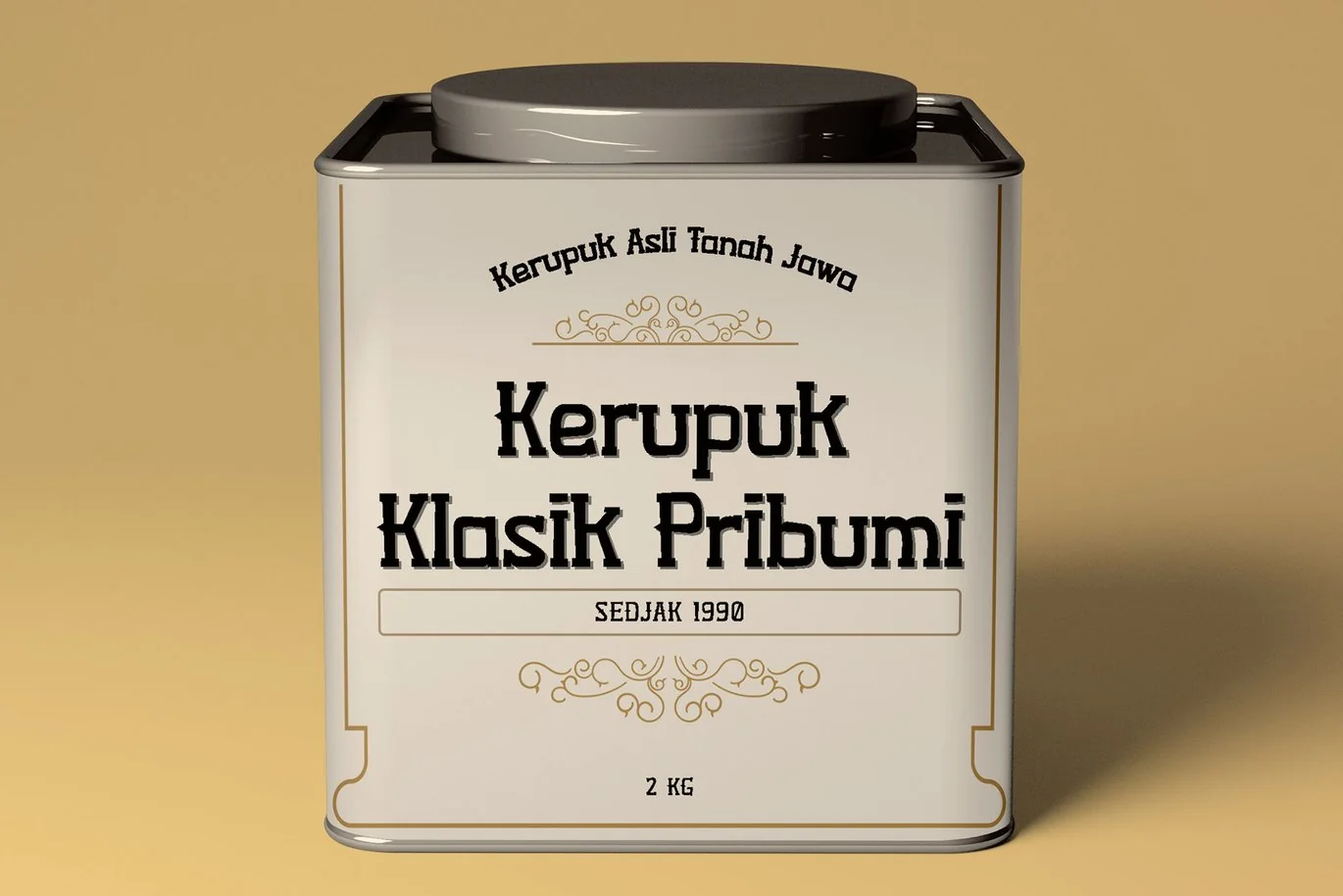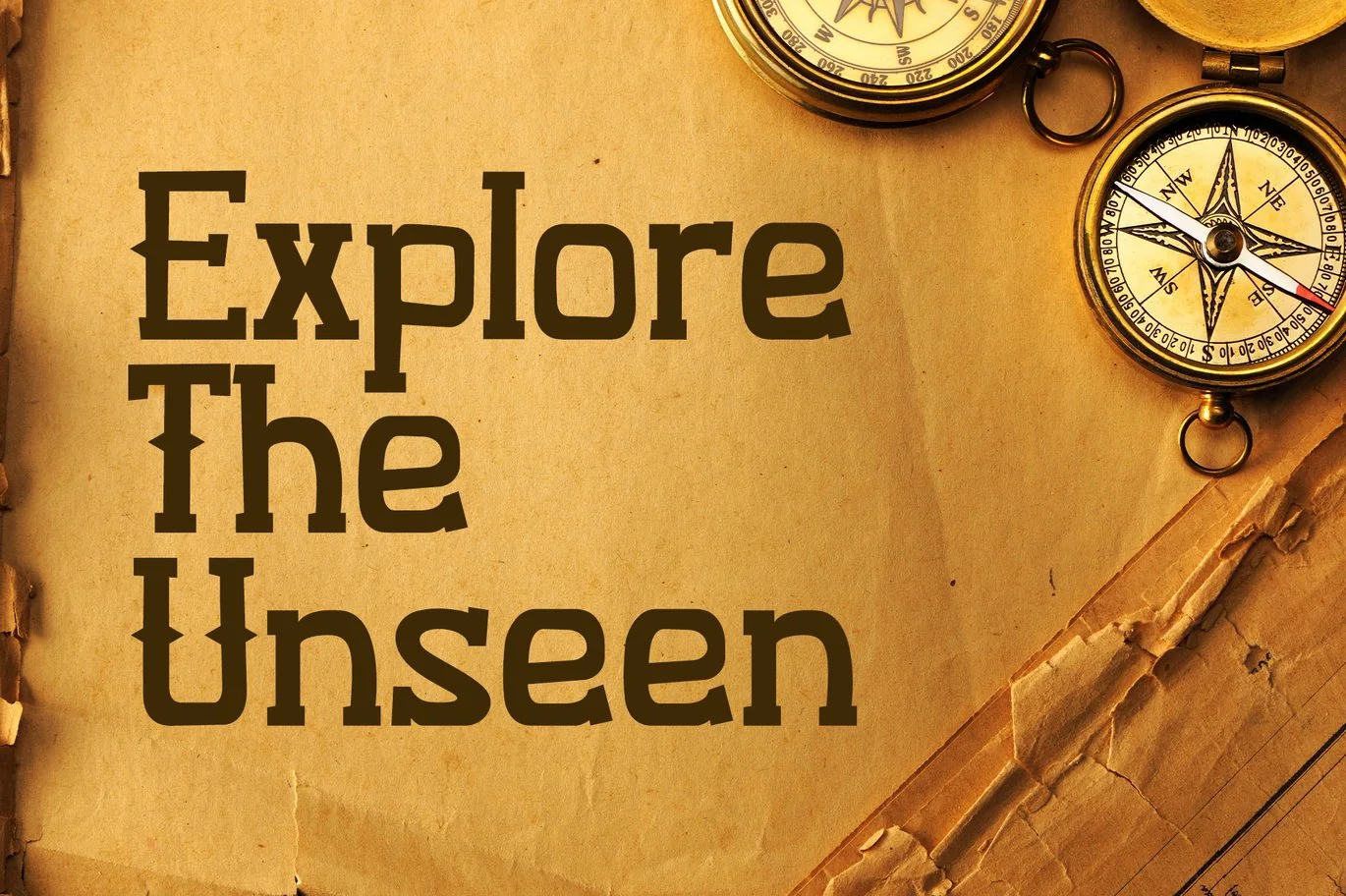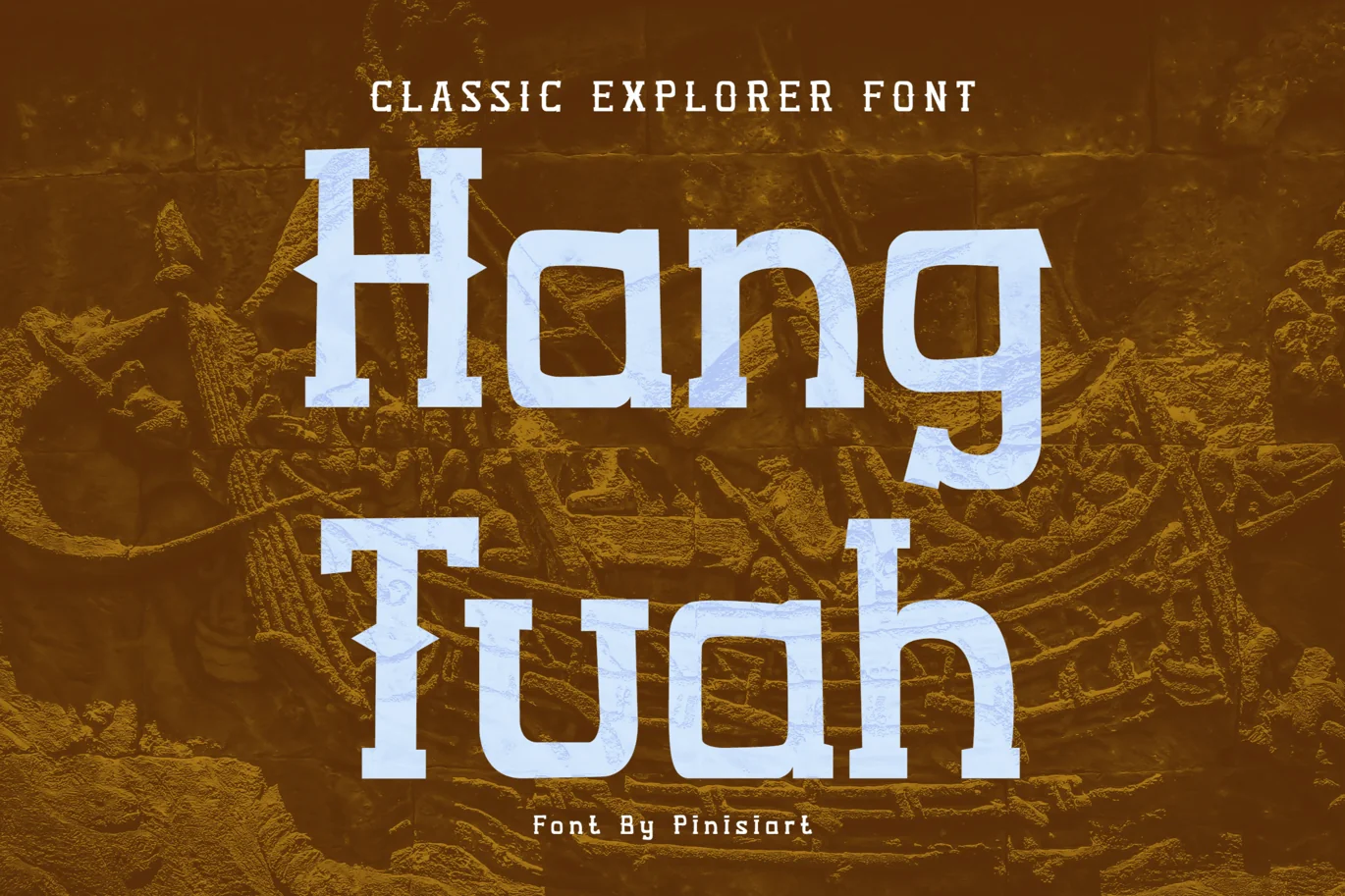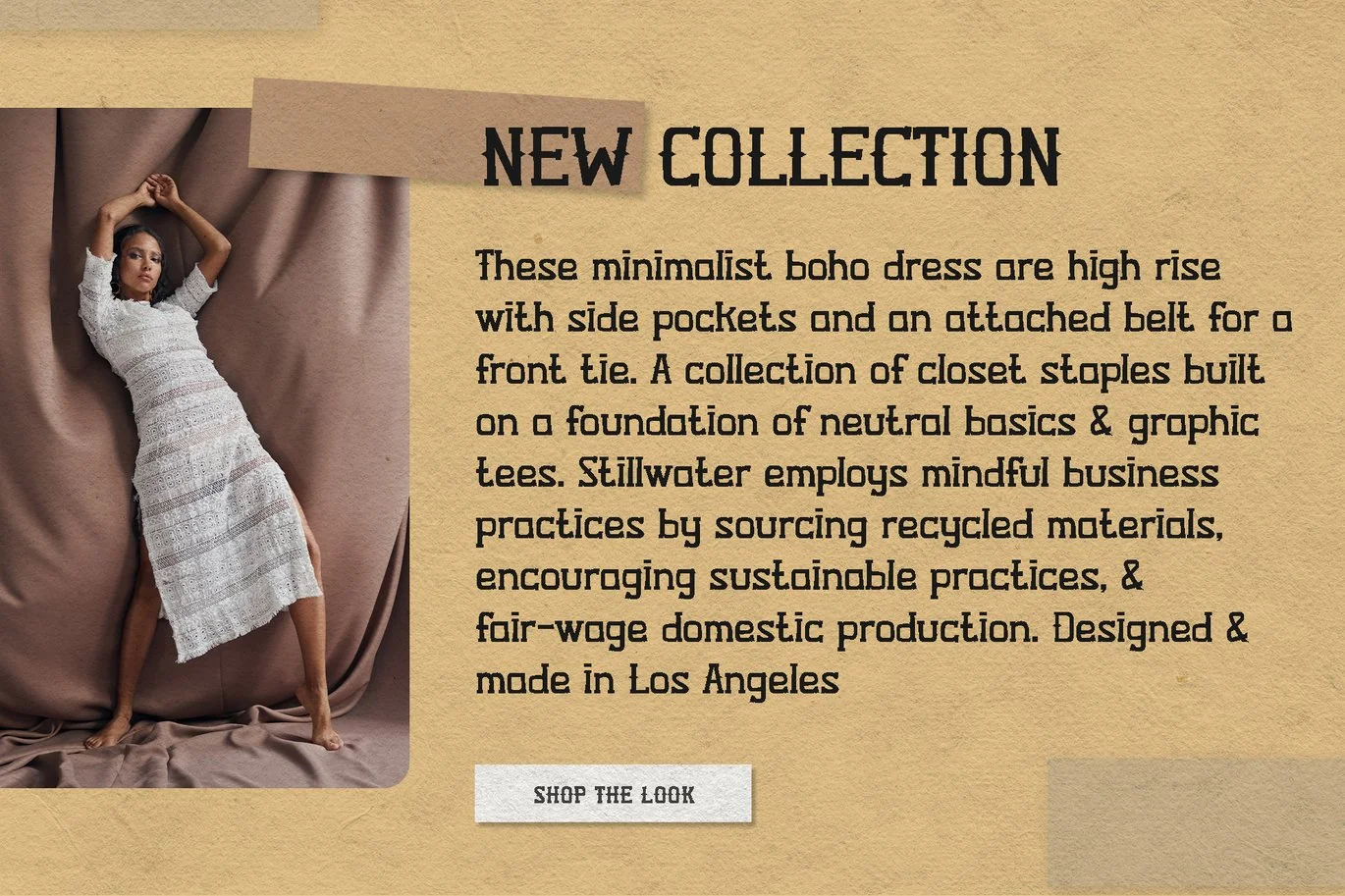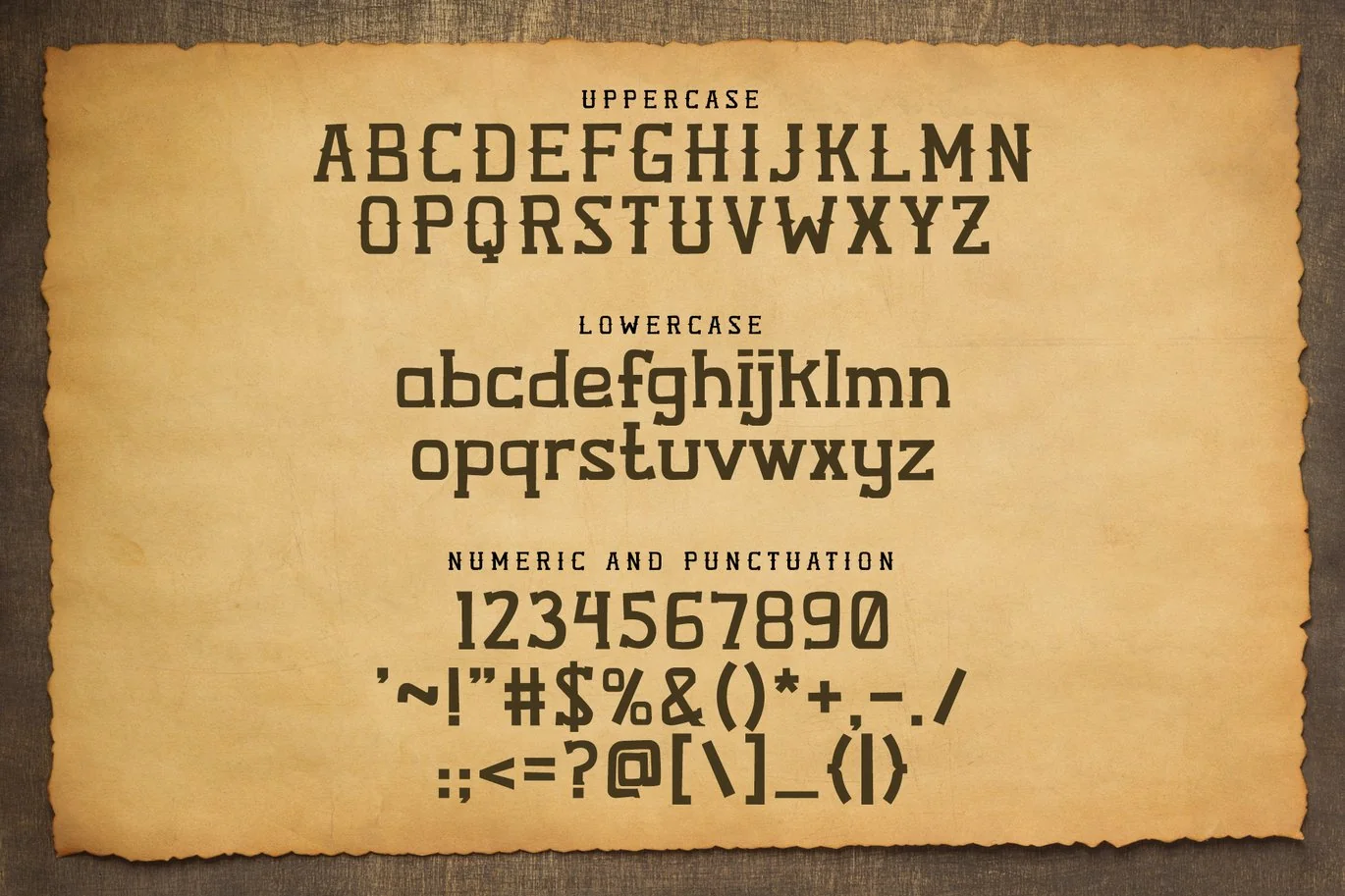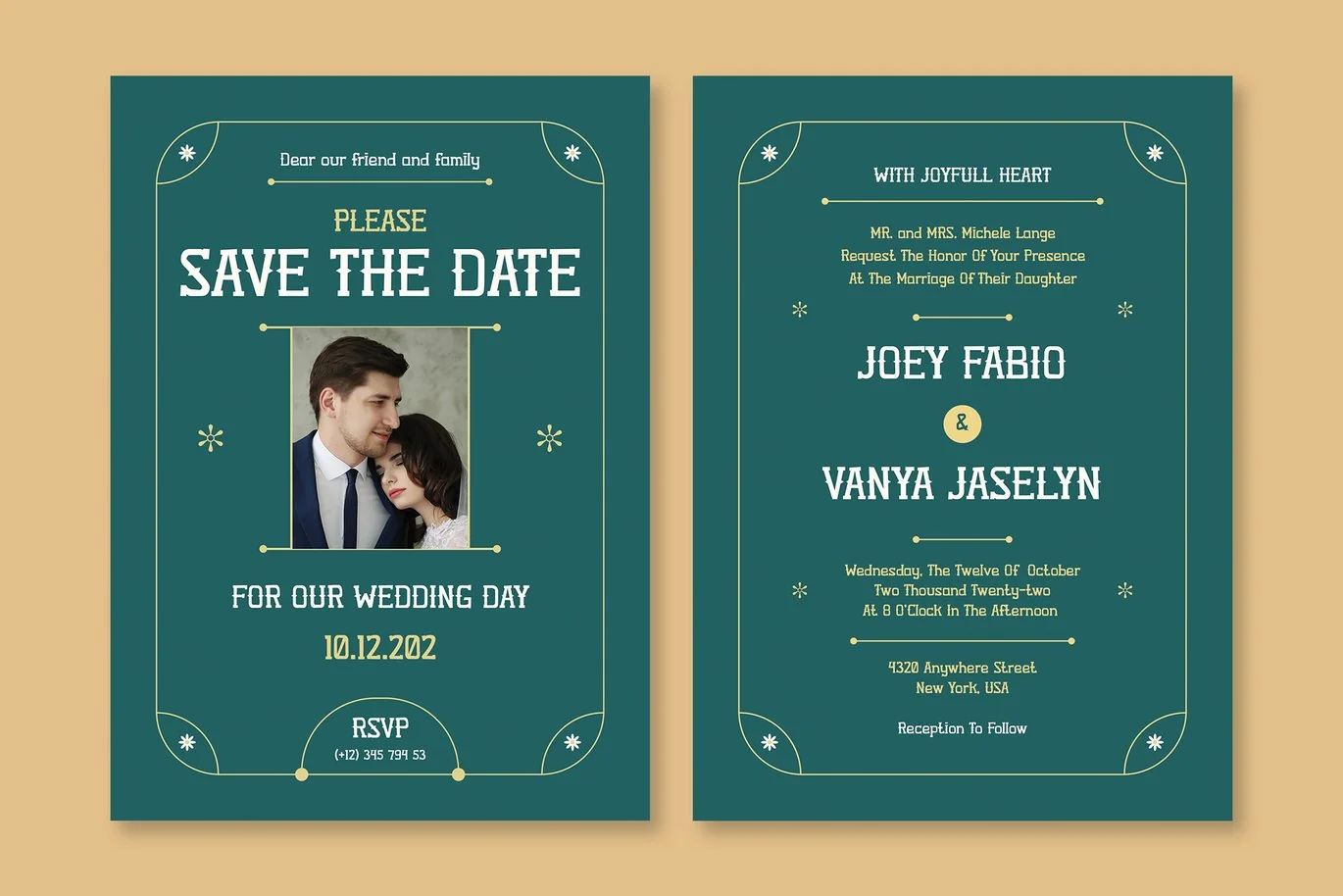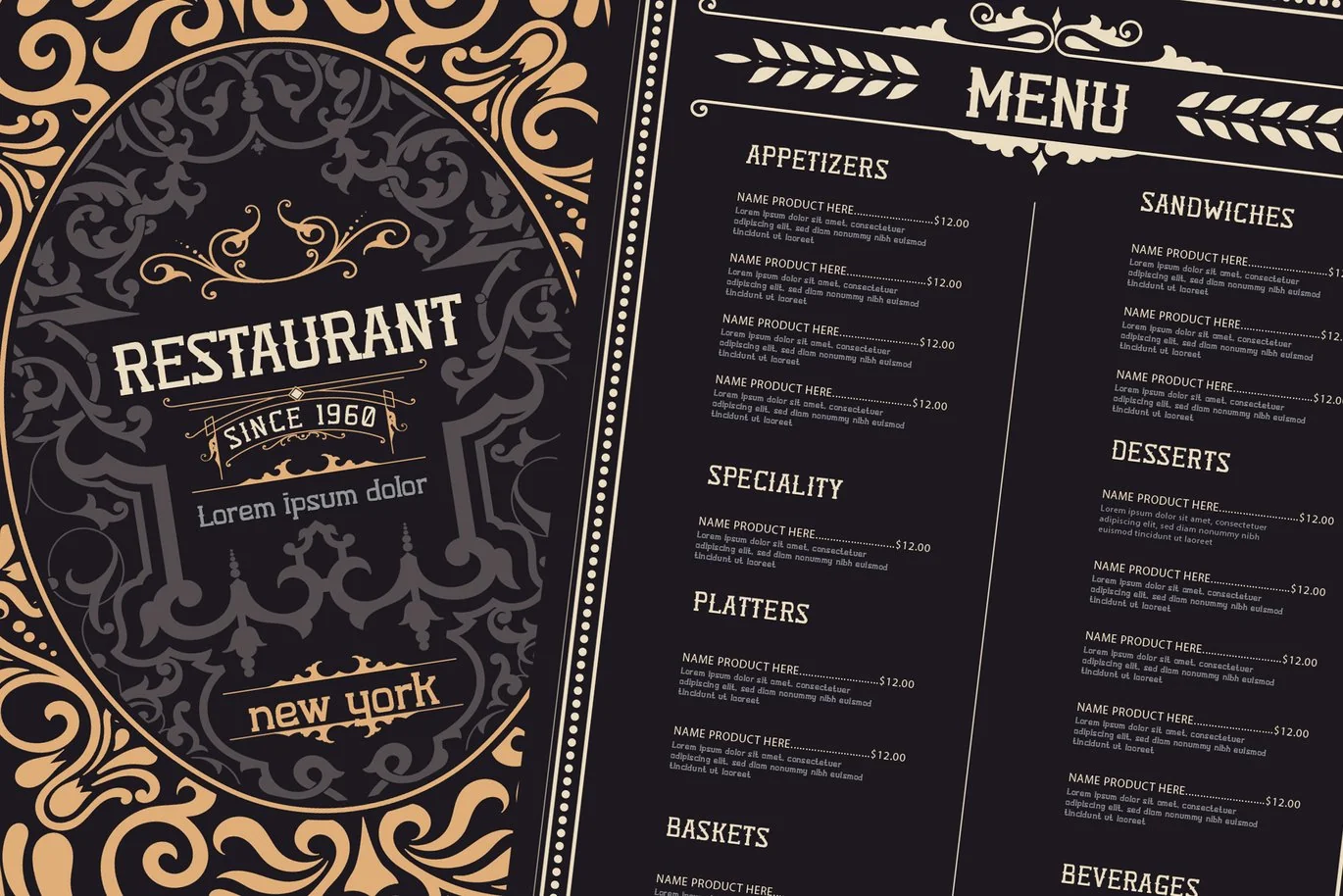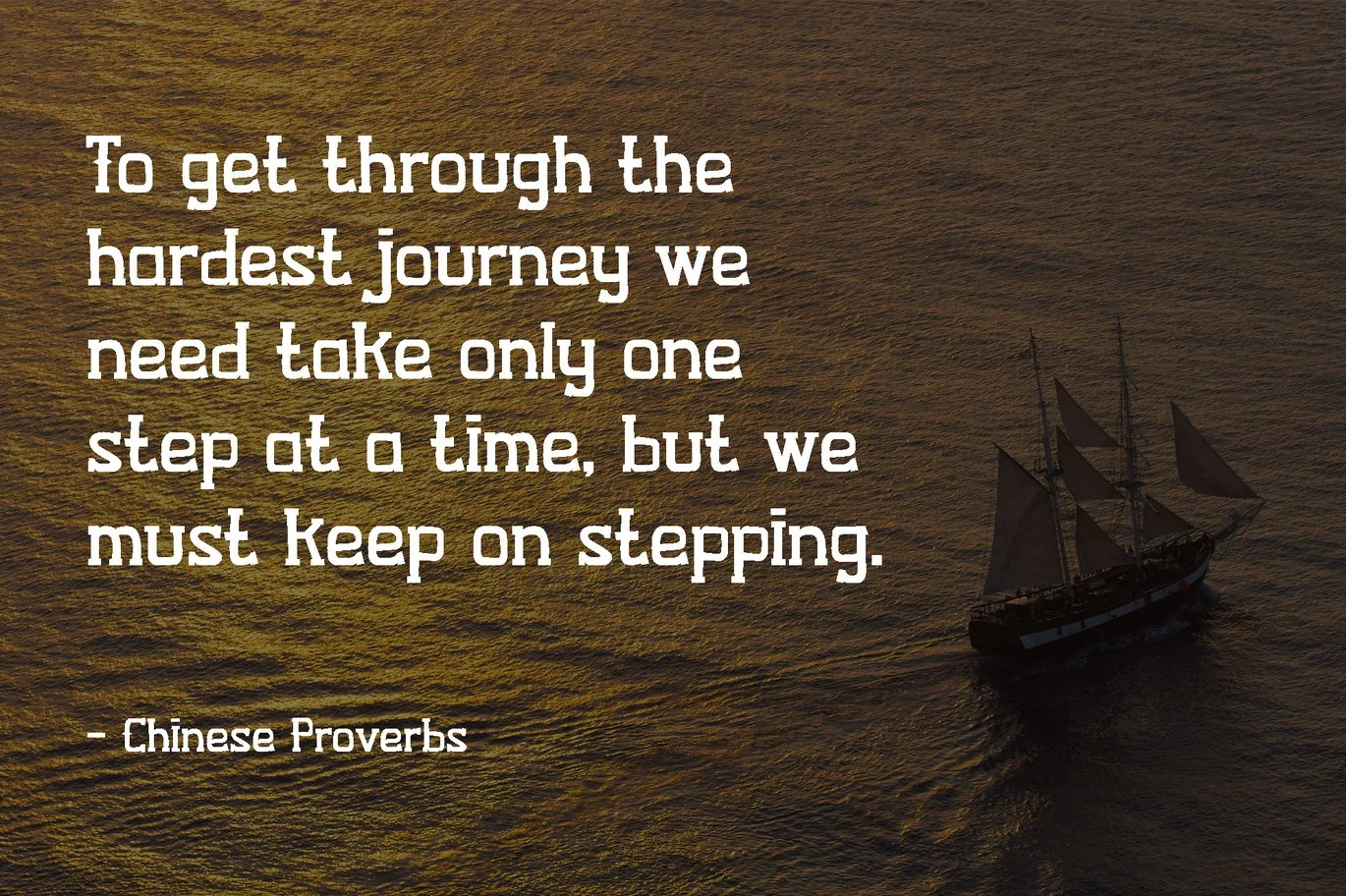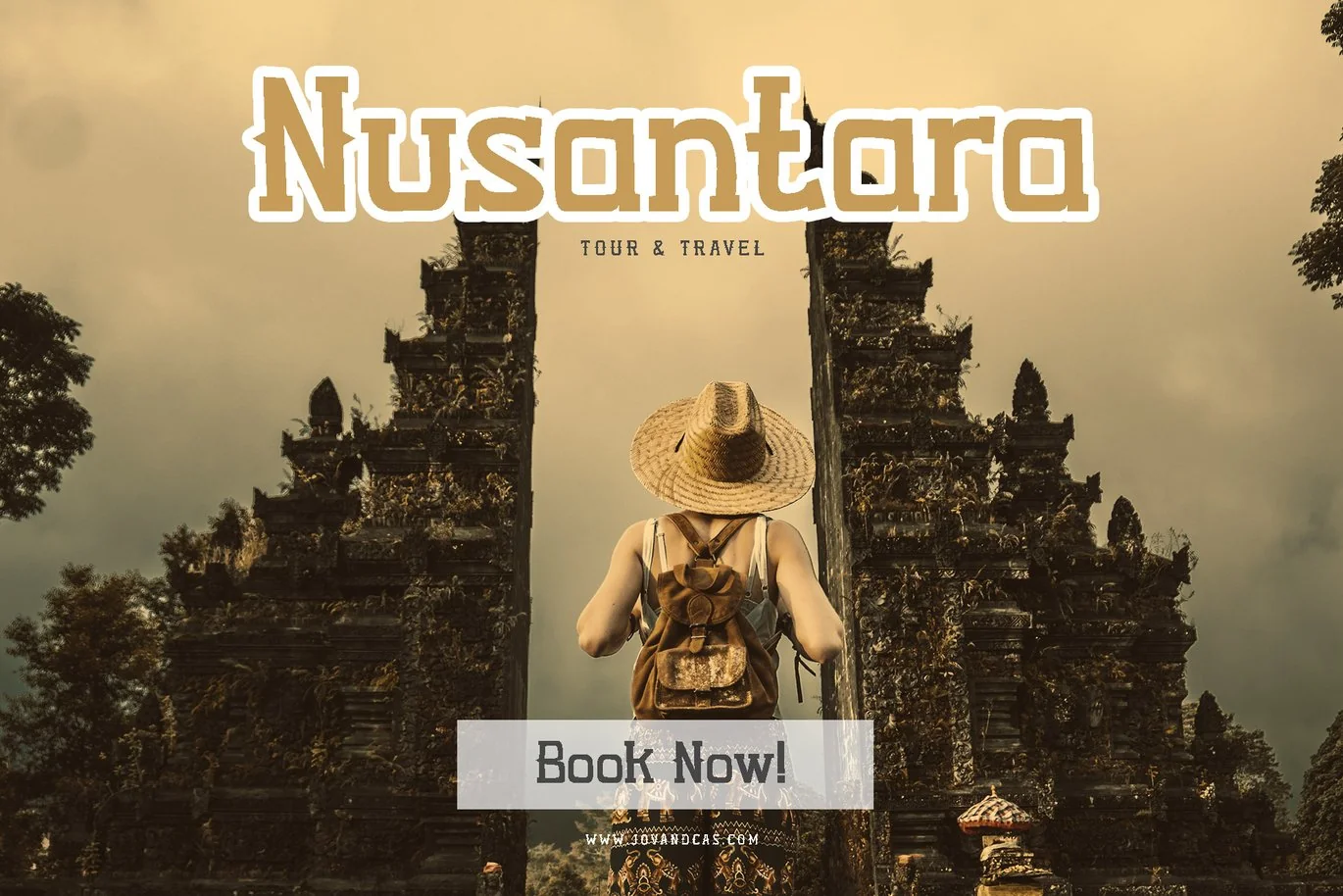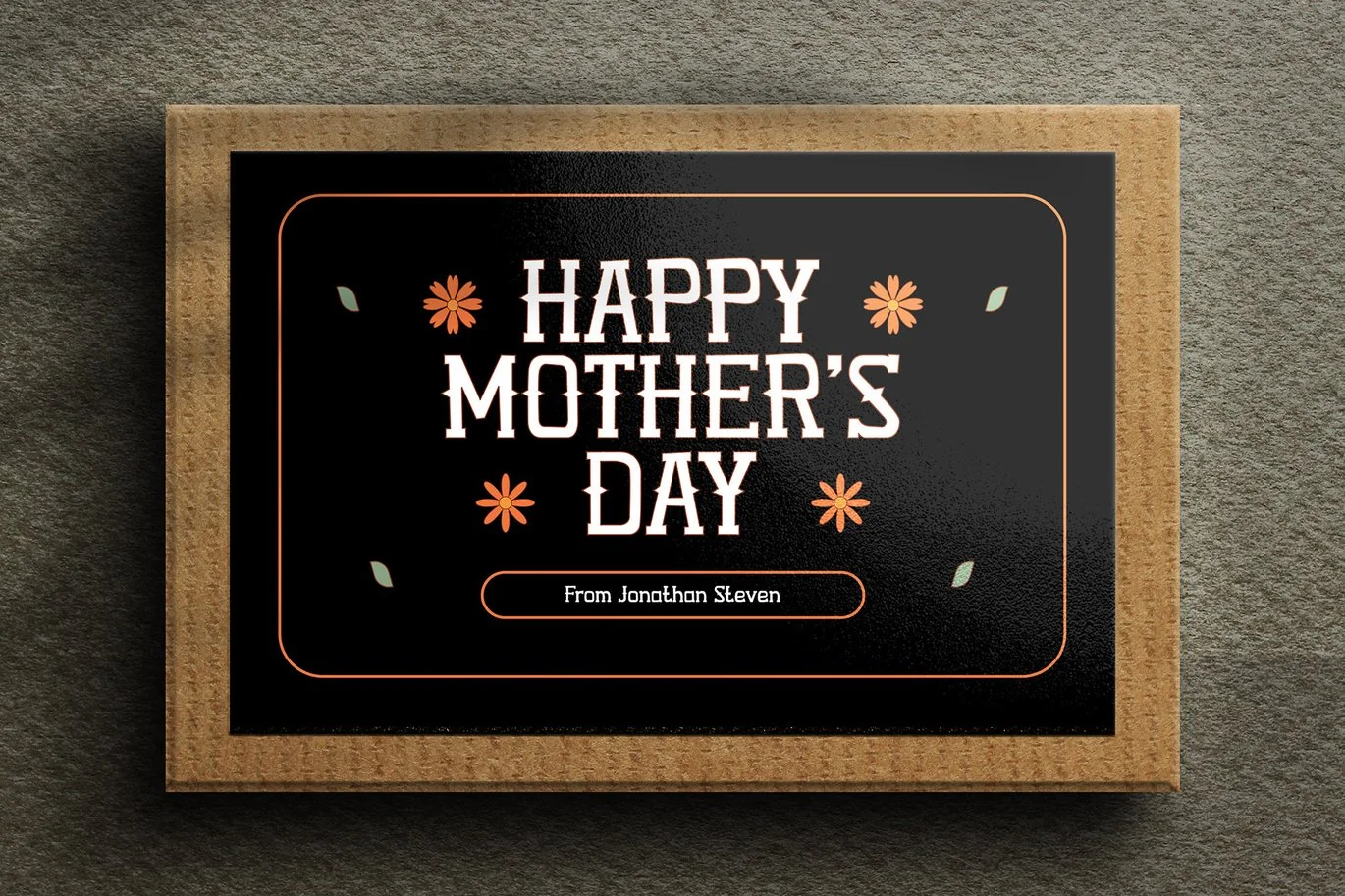
Hang Tuah – Classic Explorer Font
Classic look with spurs that emphasis the old adventure vibes. Hang Tuah will be a go to for exploration and old world adventures projects.
Suit perfectly for mature and adventurous themes books market, tourism poster, stationary, school supplies font, youtube covers, youtube thumbnails, social media page covers and so on…